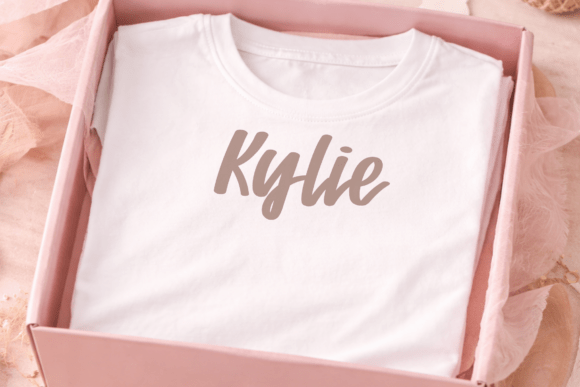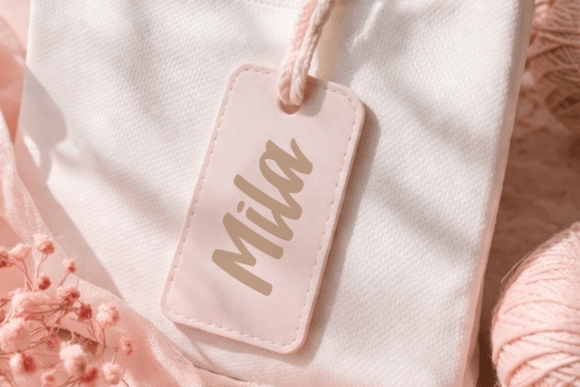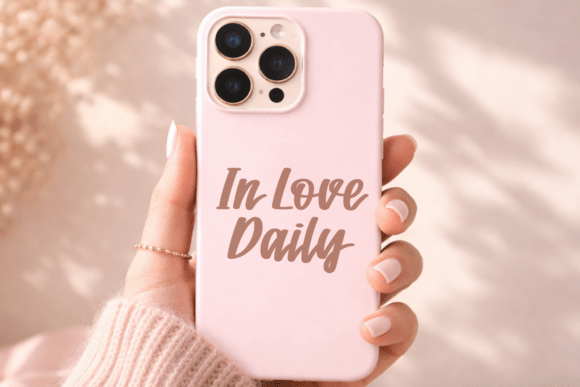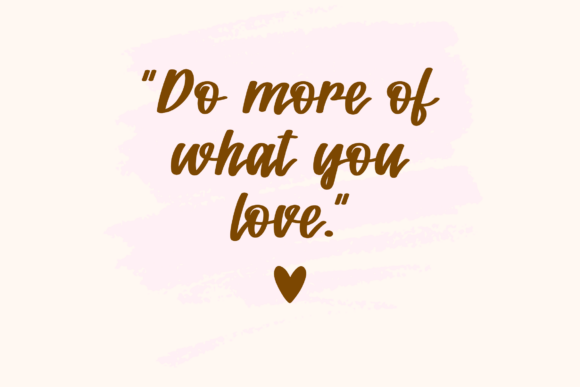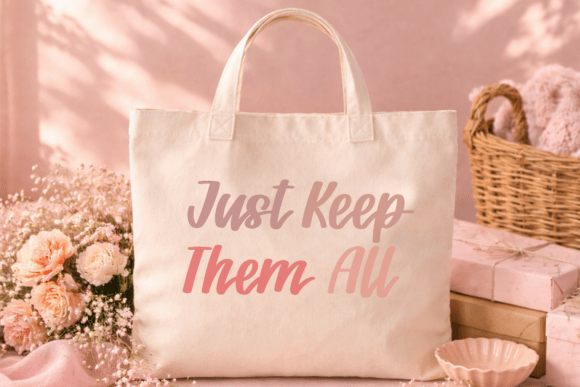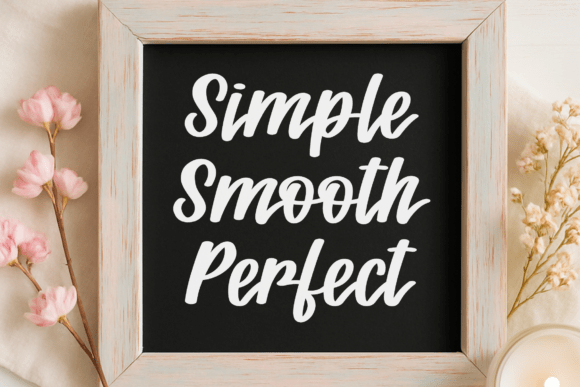
Introducing Golden Fall Font: The Cozy Handwritten Script for Autumn-Inspired Designs
As the leaves change colors and the air grows crisper, designers and crafters alike are on the lookout for fonts that capture the warmth and coziness of the autumn season. Look no further than Golden Fall Font, a beautiful handwritten script font that embodies the modern feminine design and seasonal charm of fall. In this article, we’ll dive into the features and benefits of Golden Fall Font, and explore how it can elevate your seasonal projects, branding, and social media graphics.
A Warm and Stylish Handwritten Script Font
Golden Fall Font is a warm and stylish handwritten script font that is inspired by the cozy autumn vibes and modern feminine design. Its bold flowing strokes, smooth curves, and soft handwritten movement create a friendly and inviting aesthetic that feels trendy, playful, and easy to use. This font is perfect for designers and crafters who want to add a personal touch to their projects, while maintaining a clean and readable look.
Key Features of Golden Fall Font
- Handwritten script font: Golden Fall Font is a true handwritten script font, with soft and flowing strokes that give it a personal and approachable feel.
- Cozy autumn vibes: This font is inspired by the warmth and coziness of the autumn season, making it perfect for seasonal projects and designs.
- Modern feminine design: Golden Fall Font features a modern feminine design that is both stylish and elegant.
- Bold flowing strokes: The font’s bold flowing strokes create a sense of movement and energy, making it perfect for designs that need a playful touch.
- Smooth curves and soft handwritten movement: The smooth curves and soft handwritten movement of Golden Fall Font give it a friendly and inviting aesthetic.
Perfect for Seasonal Projects and Designs
Golden Fall Font is designed to work beautifully for a variety of seasonal projects and designs, including:
- Seasonal projects: From fall-themed party invitations to harvest festival posters, Golden Fall Font is the perfect choice for any seasonal project.
- Branding: Use Golden Fall Font to create a cohesive brand identity that reflects the warmth and coziness of the autumn season.
- Stickers and Cricut crafts: The font’s bold and playful design makes it perfect for stickers, Cricut crafts, and other DIY projects.
- Planner covers and packaging: Add a personal touch to your planner covers and packaging with Golden Fall Font’s soft and inviting design.
- Social media graphics: Use Golden Fall Font to create eye-catching social media graphics that capture the essence of the autumn season.
Why Choose Golden Fall Font?
So why choose Golden Fall Font for your next project? Here are just a few reasons:
- Cute and approachable design: Golden Fall Font features a soft handcrafted look that is both cute and approachable.
- Easy to use: The font’s clean and readable design makes it easy to use for a variety of projects and designs.
- Trendy and playful: Golden Fall Font has a trendy and playful vibe that is perfect for designers and crafters who want to stay on top of the latest design trends.
- Perfect for creators: Whether you’re a designer, crafter, or DIY enthusiast, Golden Fall Font is the perfect choice for anyone who wants to add a personal touch to their projects.
In conclusion, Golden Fall Font is a beautiful handwritten script font that is perfect for designers and crafters who want to capture the warmth and coziness of the autumn season. With its bold flowing strokes, smooth curves, and soft handwritten movement, this font creates a friendly and inviting aesthetic that feels trendy, playful, and easy to use. Whether you’re working on seasonal projects, branding, stickers, Cricut crafts, planner covers, packaging, or social media graphics, Golden Fall Font is the perfect choice. So why wait? Download Golden Fall Font today and start creating your own autumn-inspired designs!